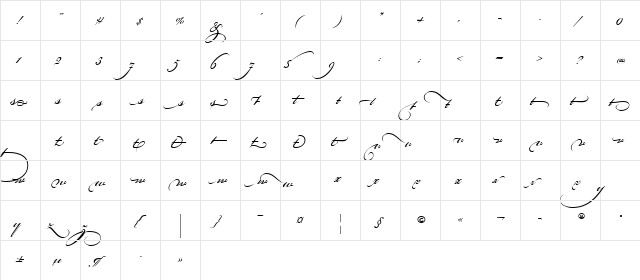
Bickham Script Alt Four Regular
| Foundry | Gophmann A.L. |
| Designer | Gophmann A.L. |
Design Context for Bickham Script Alt Four Typeface
Bickham Script Alt Four brings a calligraphic fluidity to the page — its connecting strokes and expressive curves give it an unmistakably human quality.
Font Pairing: Combine Bickham Script Alt Four with a simple geometric sans for maximum contrast — the tension between flowing curves and clean structure is a classic typographic pairing.
Pro Tip: Use Bickham Script Alt Four for short runs of text — names, titles, or taglines. Extended body copy in script faces tires the eye quickly.